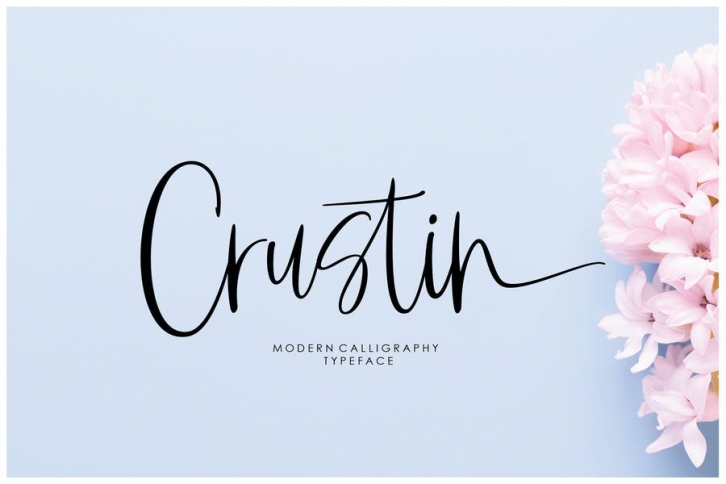
Crustin Script : A script that is so beautiful, has its own characteristics with a feminine style. which is suitable for use in various purposes. such as titles, signatures, logos, correspondence, wedding invitations, letterheads, name boards, labels, newsletters, posters, badges, branding, greeting cards, etc.